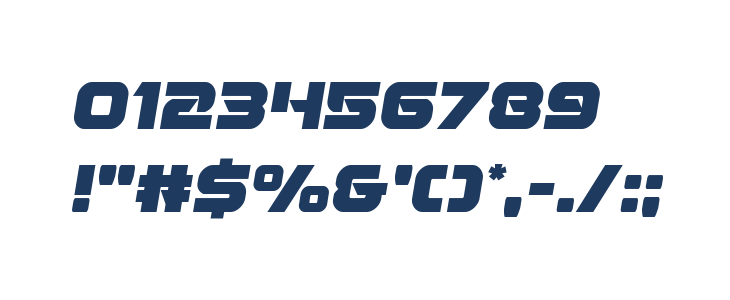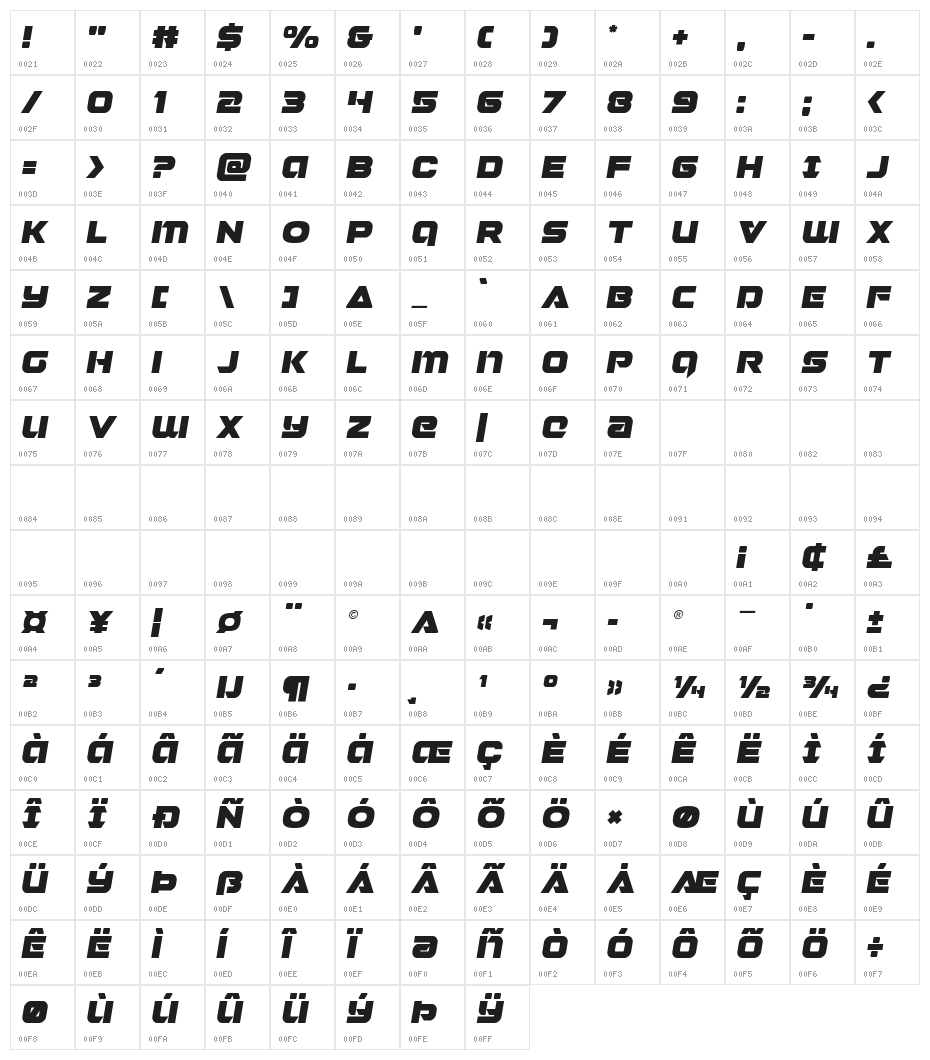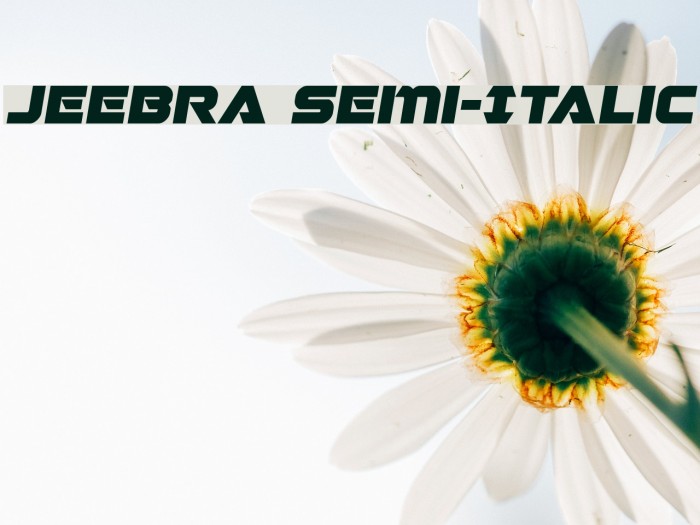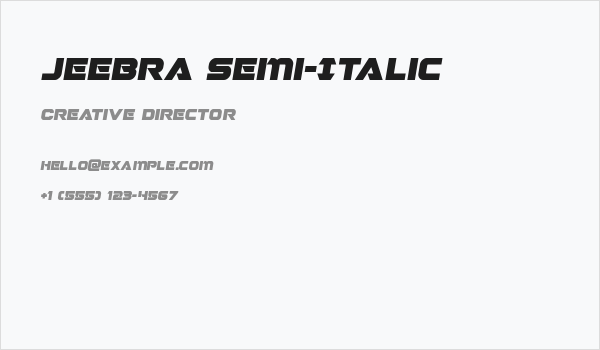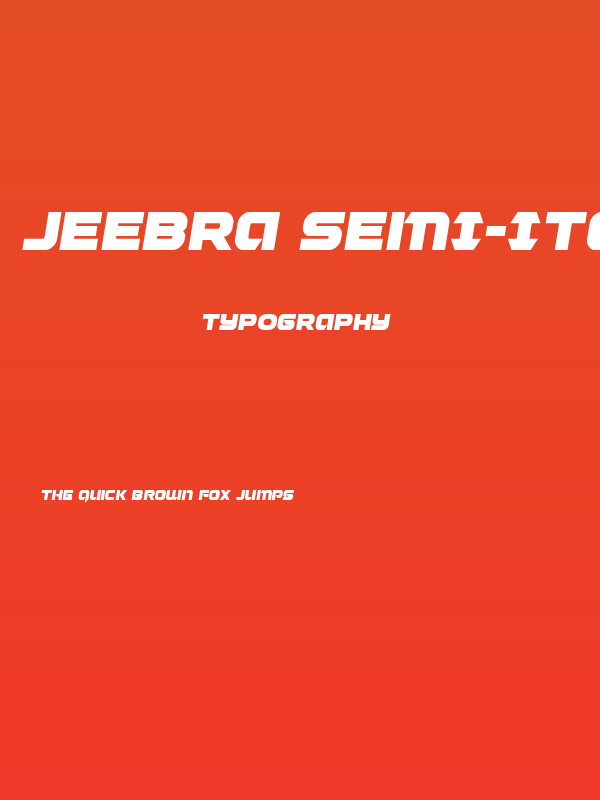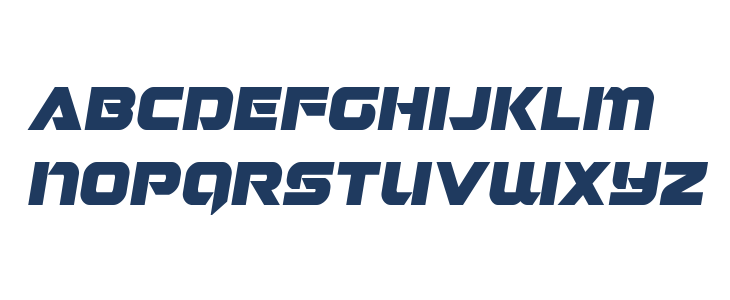
Jeebra Semi-Italic Font
Jeebra Semi-Italic Description
This font features a bold and dynamic style with a semi-italic slant, giving it a sense of motion and energy. The characters are robust and angular, with sharp edges and a futuristic appearance. The uppercase and lowercase letters maintain a consistent design, emphasizing a strong geometric structure. Numbers and special characters follow the same bold and angular theme, ensuring uniformity across all glyphs. The font's unique style makes it suitable for projects that require a modern and impactful look.
| Proposed Projects | Ideal for sports branding, technology logos, video game titles, and dynamic posters. |